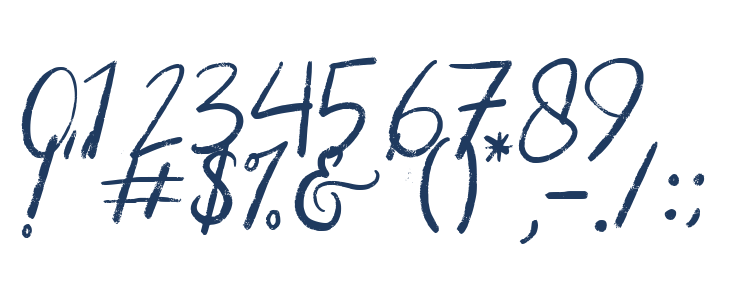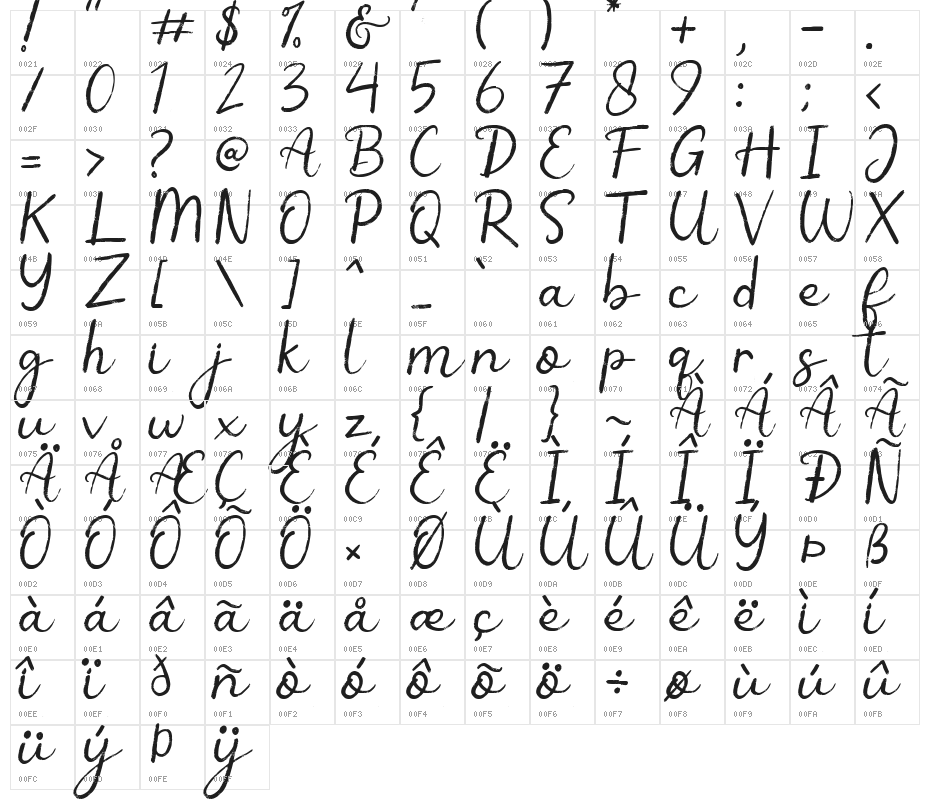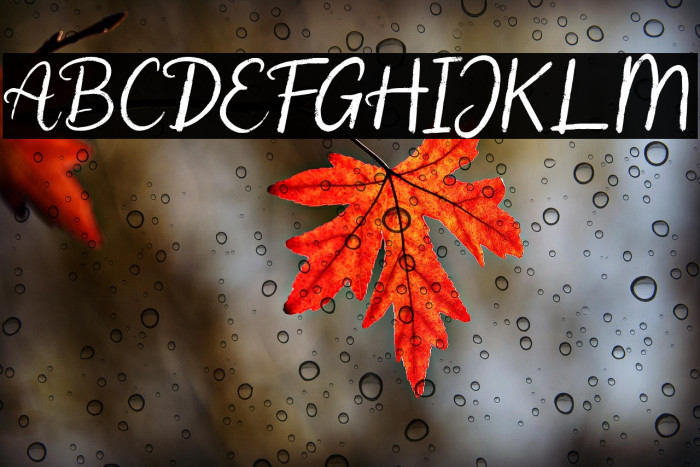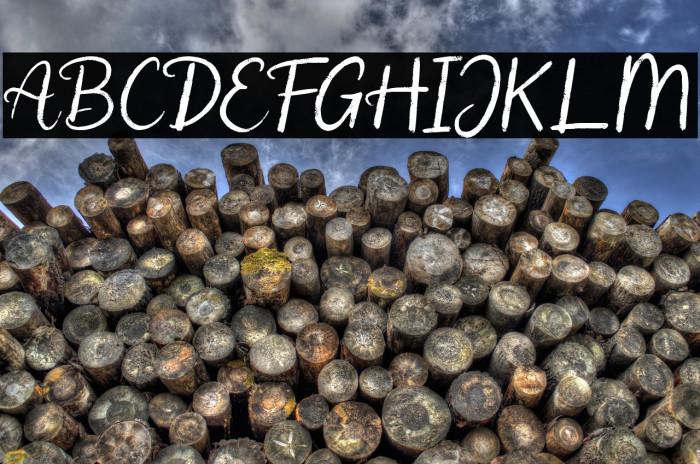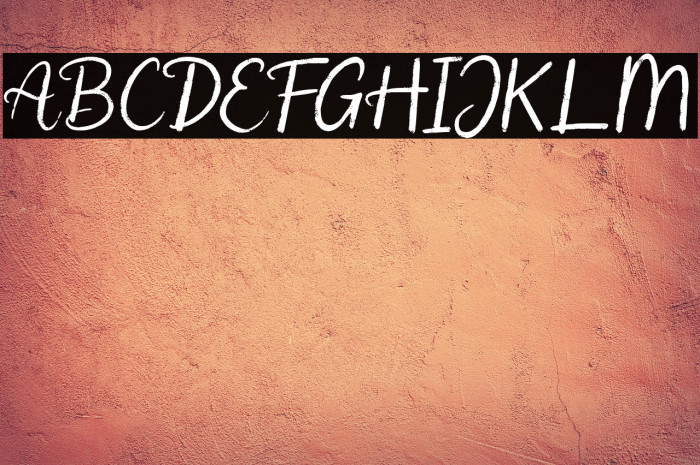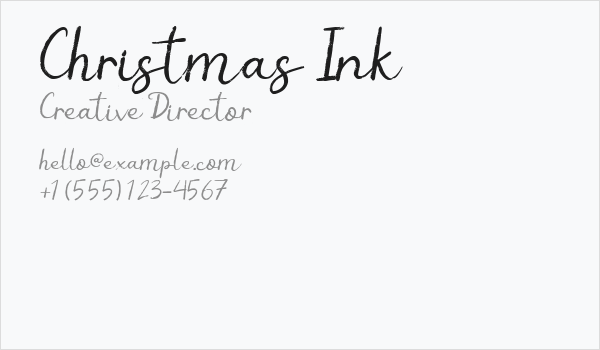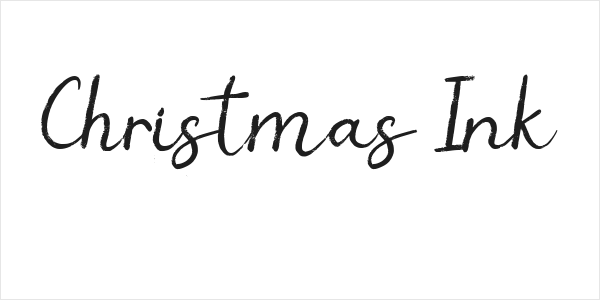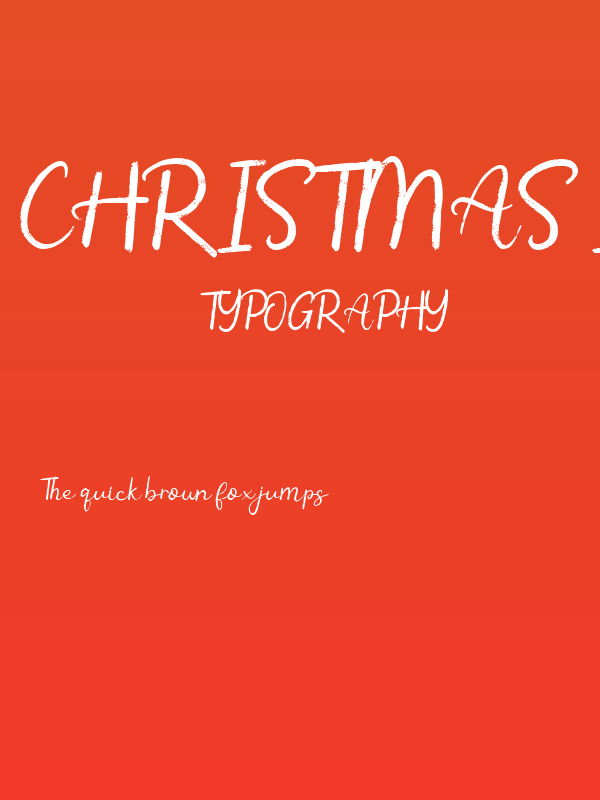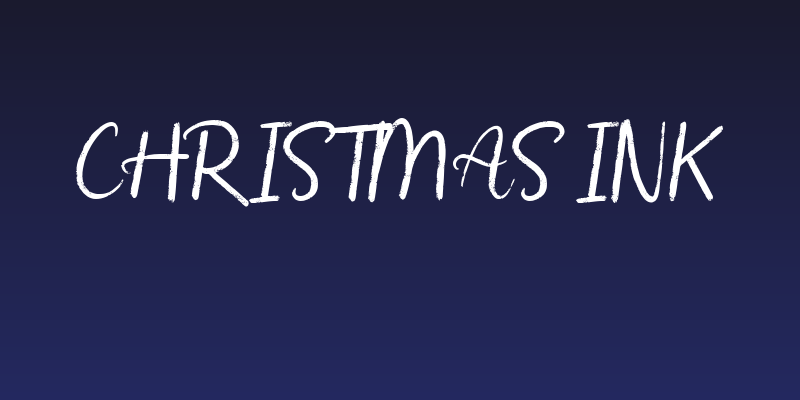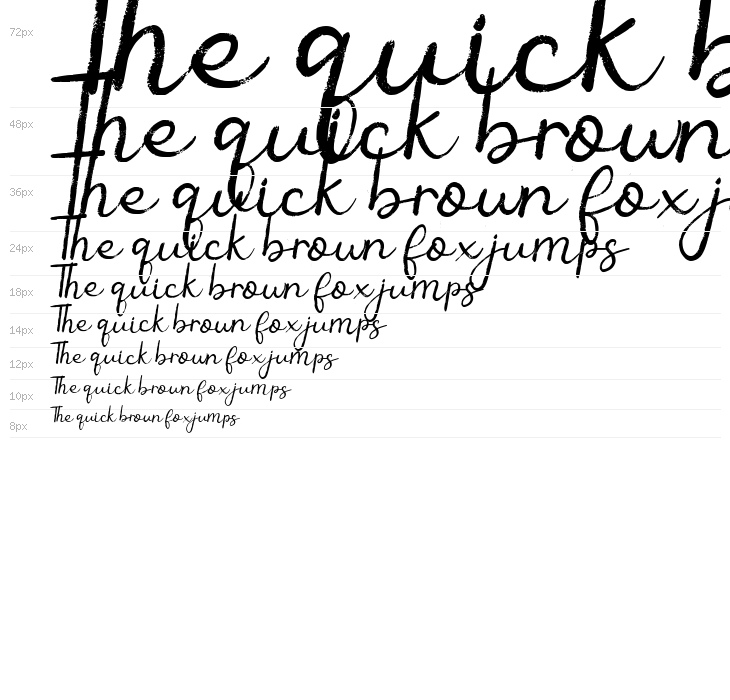
Christmas Ink Font
Christmas Ink Description
This font features a lively and expressive handwritten style, characterized by its fluid and dynamic strokes. The letters have a natural, flowing appearance, with a slight slant that adds to its casual and friendly feel. The uppercase letters are bold and prominent, while the lowercase letters maintain a consistent rhythm and balance. The numerals are clear and legible, matching the overall style of the alphabet. Special characters are thoughtfully designed, maintaining the playful and artistic essence of the font. This font is perfect for adding a personal touch to any project, with its unique blend of elegance and informality.
| Proposed Projects | Ideal for greeting cards, invitations, personal branding, and artistic projects. |